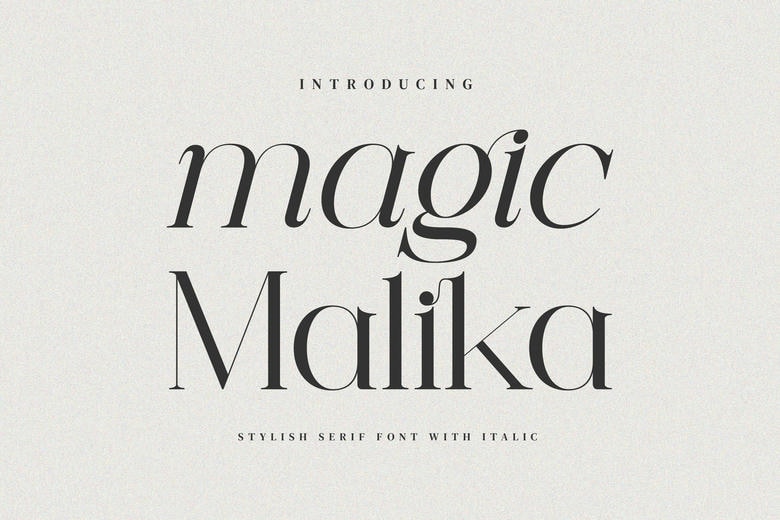
Magic Malika Font
Magic Malika is a stylish serif font that brings a sense of timeless elegance and sophistication. Its carefully designed letterforms and subtle serifs create a balance between classic and modern styles. This typeface adds a refined touch to any project, helping your designs stand out.
Magic Malika Stylish Serif Font